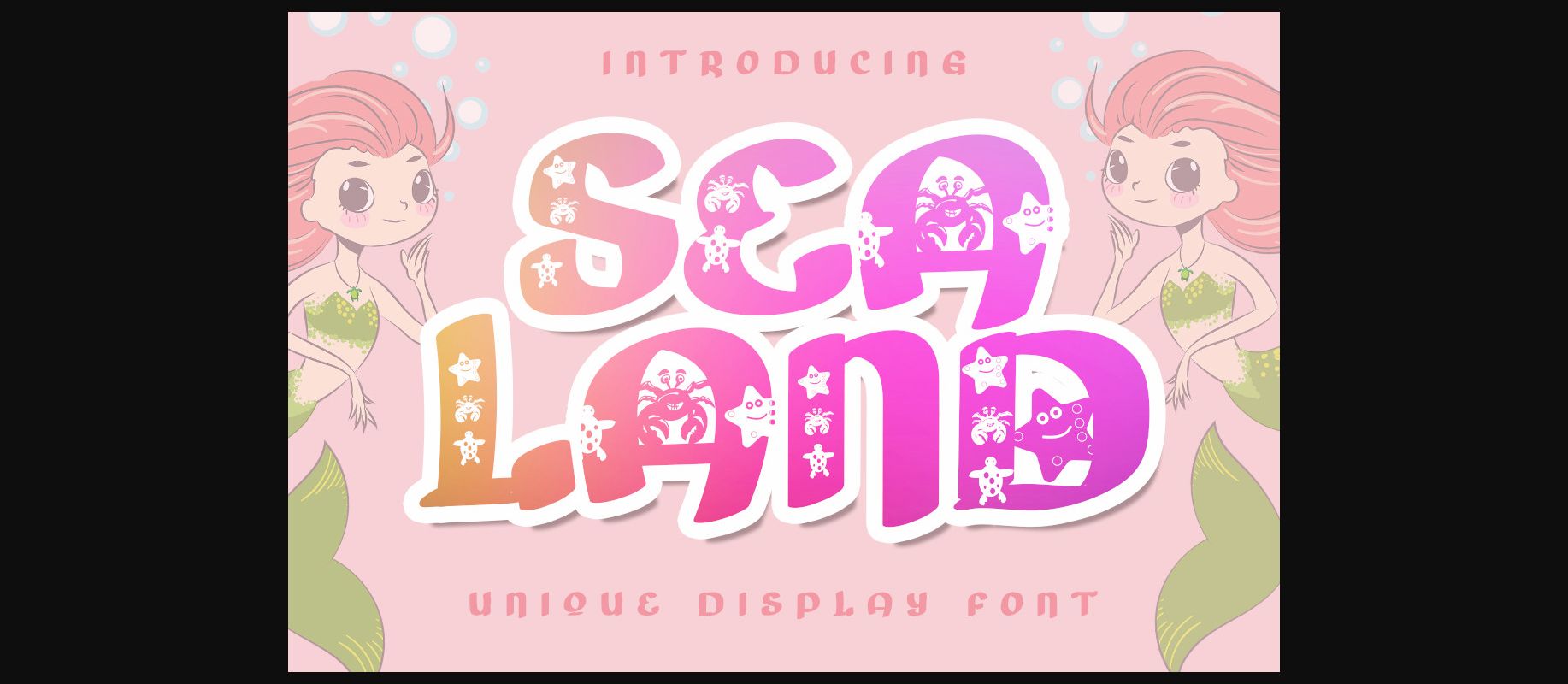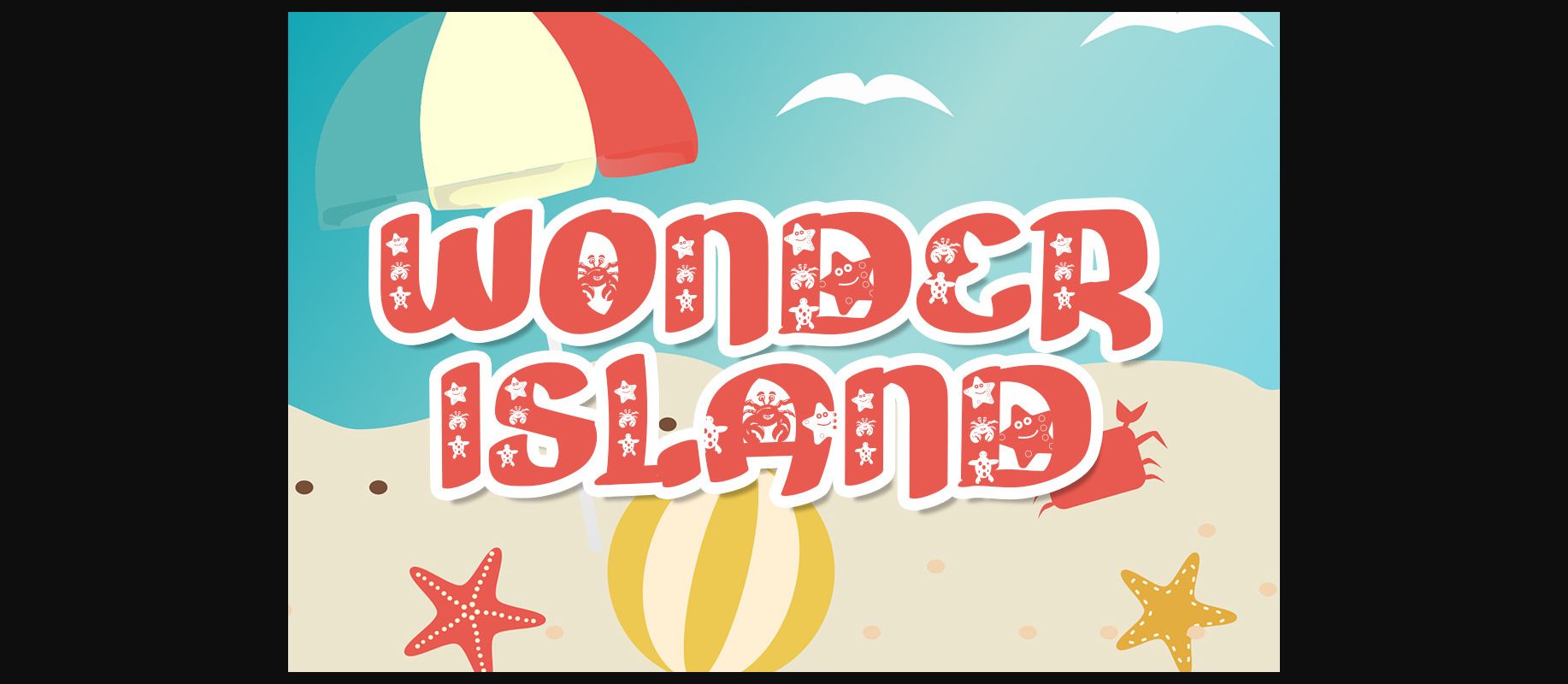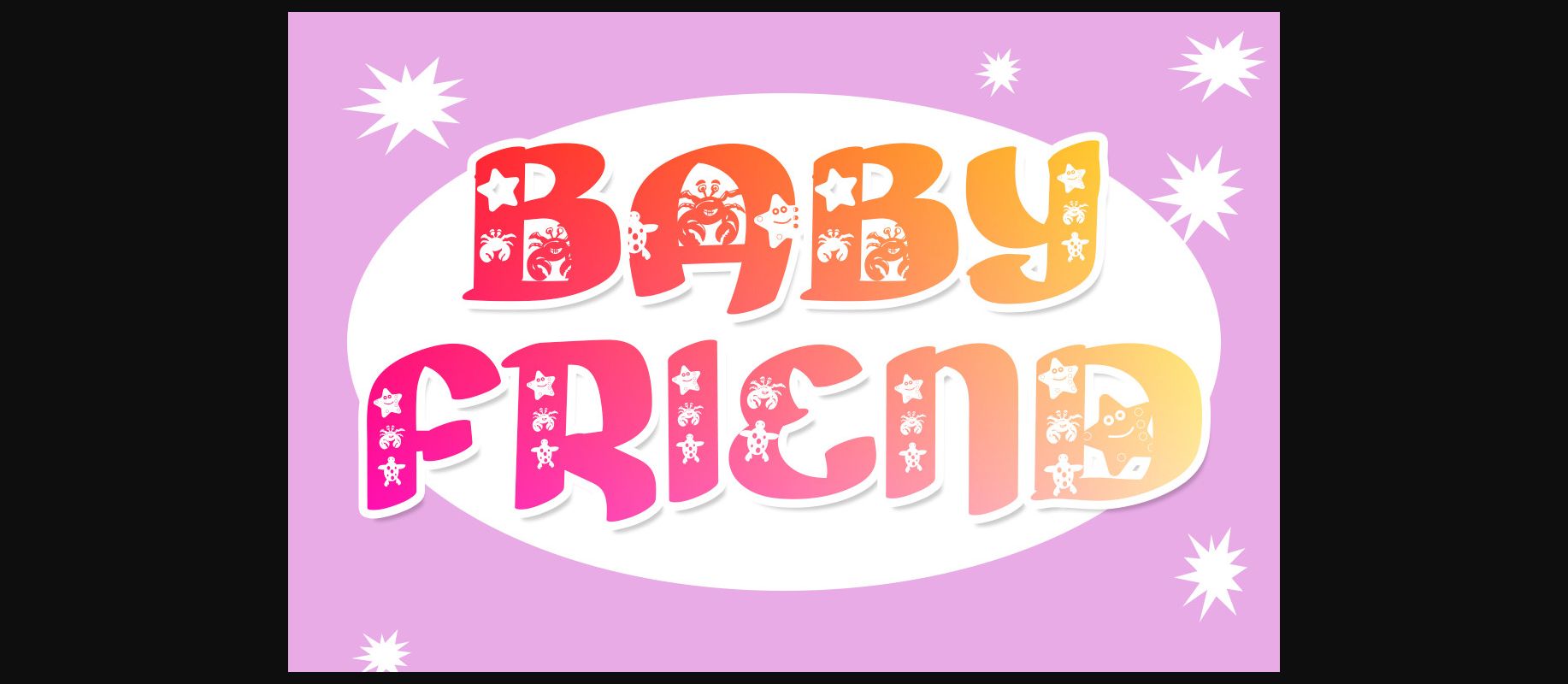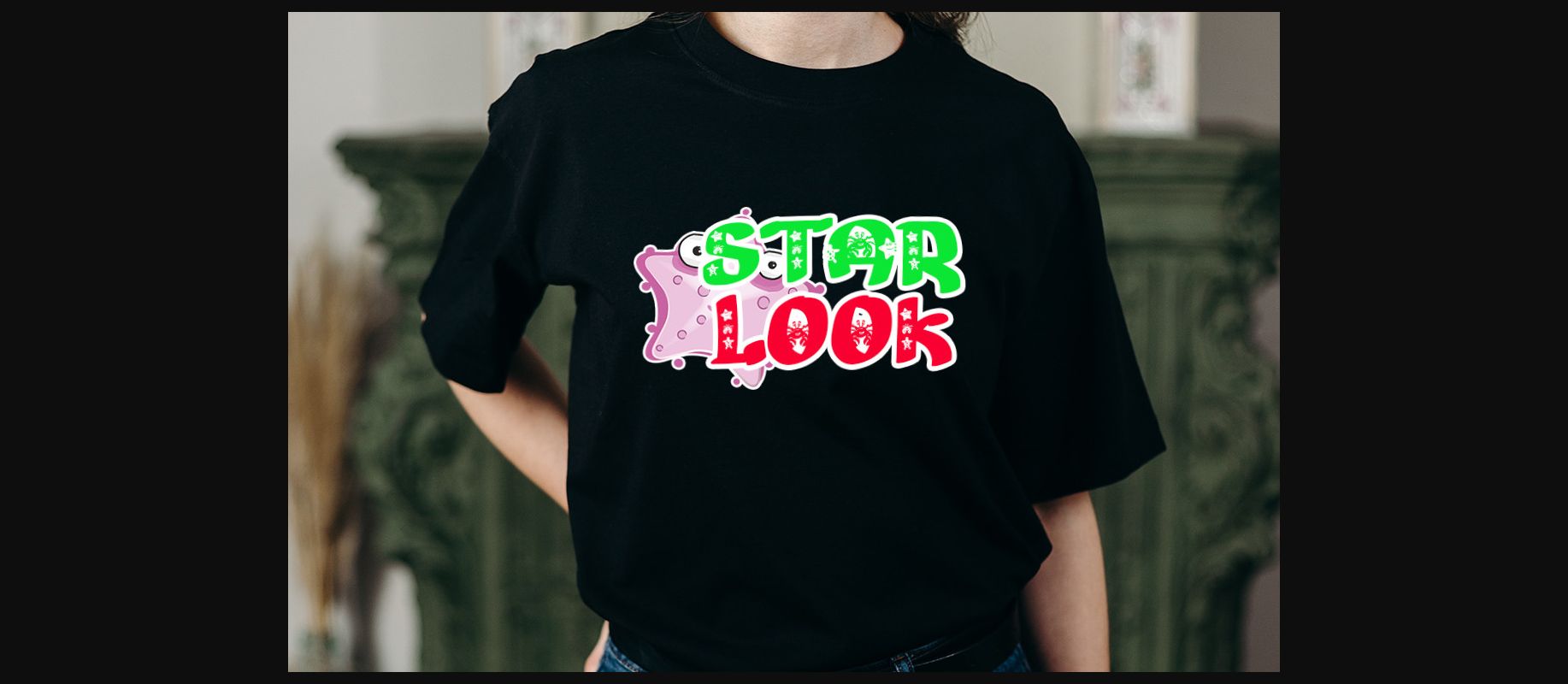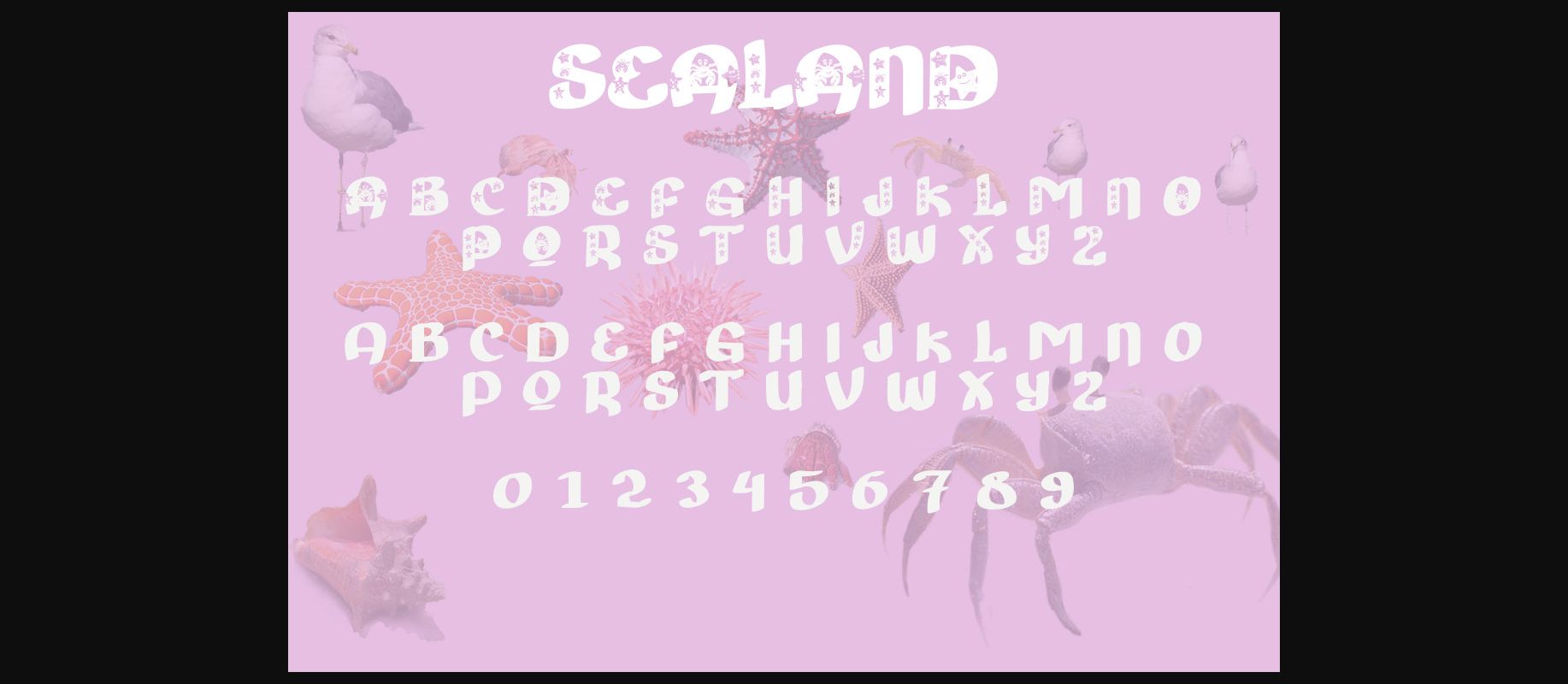
Sealand Font
About Sealand Font
Sealand is a lovely duo font (decorative and display), perfectly suitable for bold and creative projects that need powerful typography. Some of the lovely characters have sea creatures that will add a wonderful touch to any sea-related project!